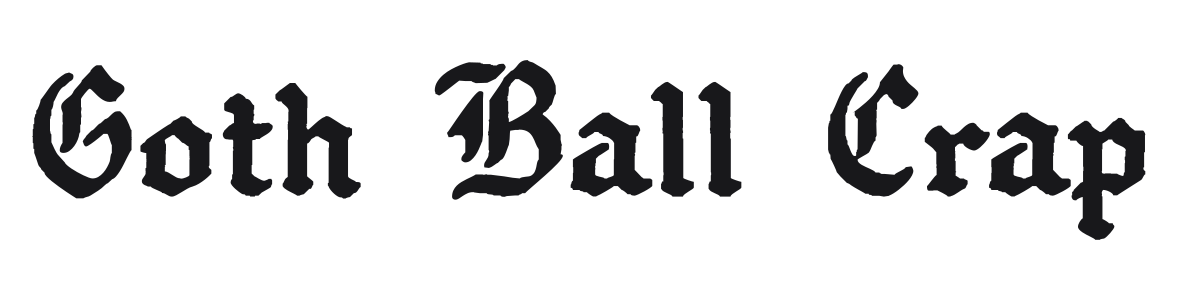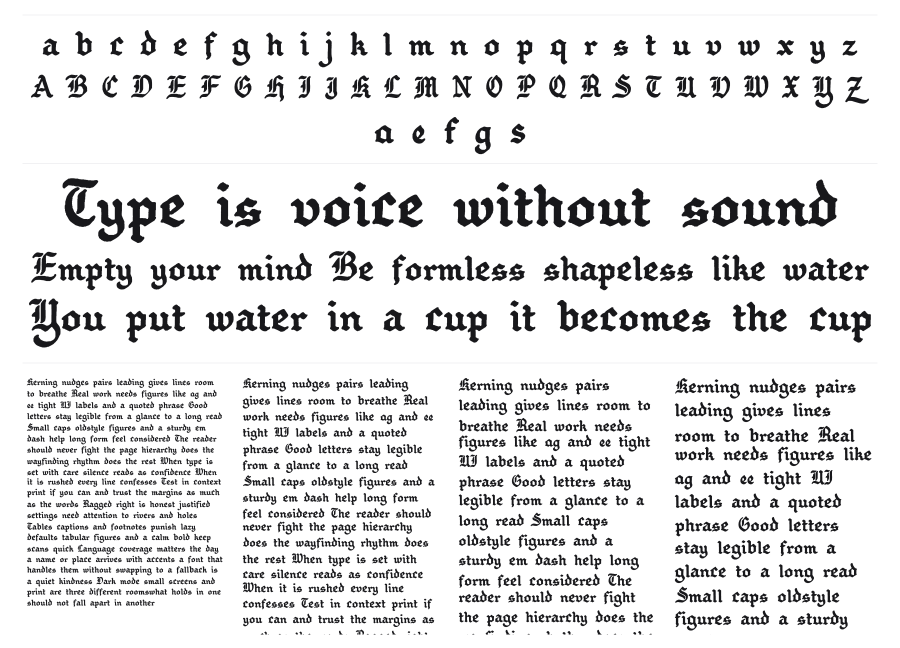
Goth Ball Crap
Goth Ball Crap is a bold Gothic blackletter with thick, angular strokes and a heavy, almost brutish weight. It takes traditional medieval construction and pushes it toward street and metal culture, with dense ink traps and sharp diamond terminals that give it a raw, unapologetic character. Strong for band logos, poster headlines, and anything that needs a dark, underground edge.